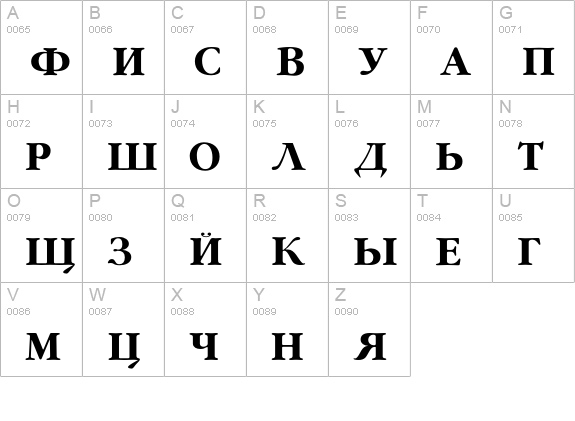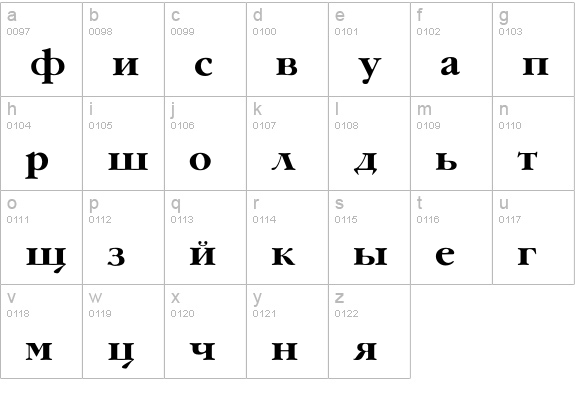
GaramondFLFCyrillic-Bold Font Details
GaramondFLFCyrillic-Bold is a strong, high-contrast variant in the GaramondFLFCyrillic typeface family \xE2\x80\x94 well suited to headlines, attention-grabbing titles, and strong calls-to-action.
GaramondFLFCyrillic-Bold is a timeless and elegant font that exudes sophistication and professionalism. With its bold weight, it commands attention and makes a bold statement in any design project. This font is perfect for headlines, titles, logos, and any other element that requires a strong and impactful look. Its clean and classic letterforms are beautifully balanced, making it easy to read even at smaller sizes. GaramondFLFCyrillic-Bold is part of the GaramondFLFCyrillic font family, which is known for its versatility and versatility. It is designed specifically for Cyrillic scripts, making it an excellent choice for projects that require Russian, Ukrainian, and other Eastern European languages. The best part? GaramondFLFCyrillic-Bold is free to download at FontsMarket.com. It's never been easier to add a touch of elegance and professionalism to your designs. Whether you're working on a personal project or a commercial endeavor, this font will elevate your work to the next level. So why wait? Download GaramondFLFCyrillic-Bold today and unlock a world of possibilities for your design projects. Enjoy the freedom of using a high-quality font that is freely available to everyone at FontsMarket.com.